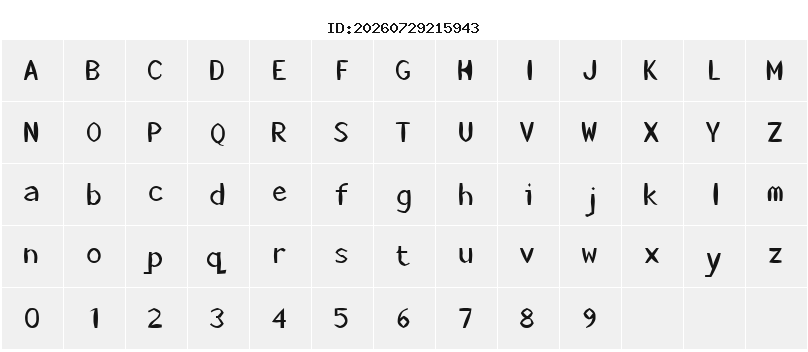
• Font Name: KillerStumps
• Full Font Name: KillerStumps
• Version: 1.0 of this why the heck did I name it killerstump font
About KillerStumps.ttf
KillerStumps.ttf is a modern, elegant sans-serif font designed for ultimate readability and visual harmony. Perfect for branding, headlines, web design, and print materials.